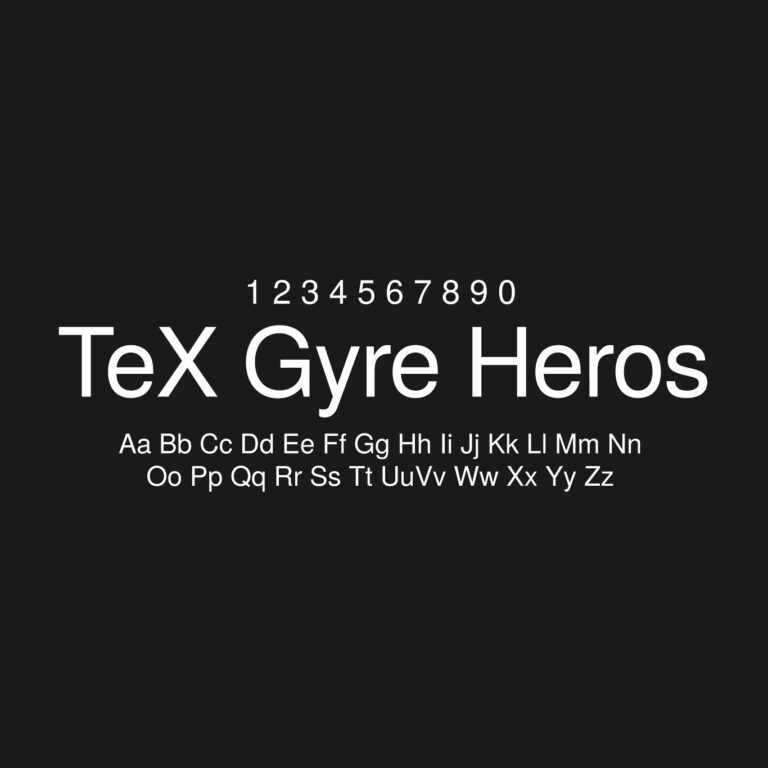
TeX Gyre Heros is a Helvetica-like sans-serif typeface from the TeX Gyre font collection. It has a clean neo-grotesque structure, practical proportions and strong readability, making it useful for documents, presentations, academic layouts, editorial design, UI mockups, posters and professional typography projects.
Designer: GUST e-foundry